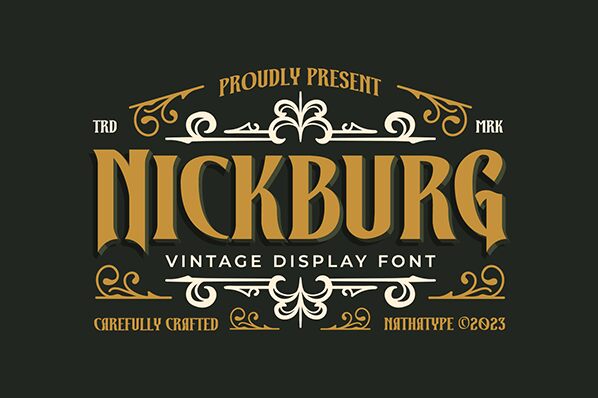
Nickburg
Nickburg font by Nathatype is a vintage display font that will delight your audience with its unique shape and style. With a condensed text width, the letters immediately pop in an eye-catching manner as they present interesting vibes. The Gothic style is evident in every character nicely mixed with the modern typography influences.
No design project should lack uniqueness and creativity! Nickburg can have all sorts of uses for headings, social media posts, quotes, invitations, postcards, greetings cards, packaging designs, posters and flyers. This free techno display font ensures no shortage of surprises!